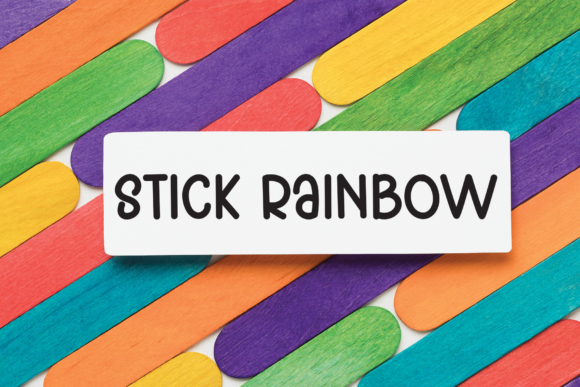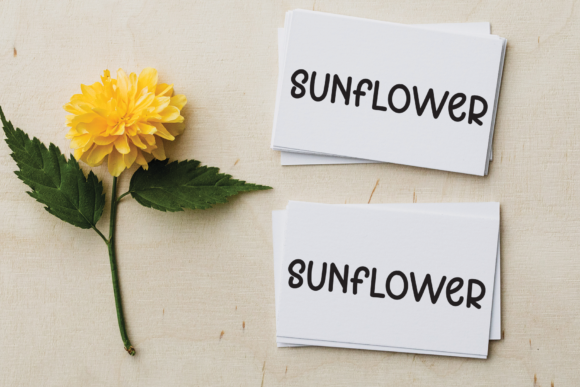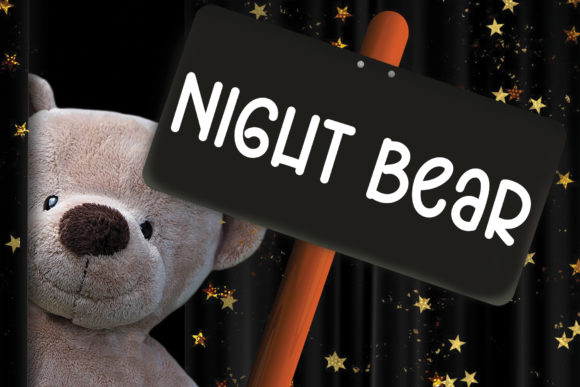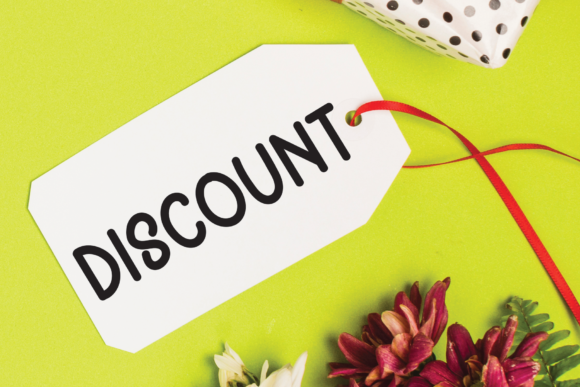
Introduction to School Moment Font
Do you remember the first time you fell in love with a font? Maybe it was a quirky handwritten script that caught your eye in a design magazine, or a beautifully crafted sans-serif that made your project stand out. For me, it was a font that embodied the carefree spirit of childhood – the School Moment Font.
This charming font is a treasure trove of creativity, perfect for designers who want to add a touch of whimsy to their projects. With its high quality design and transparent background, School Moment Font is a valuable resource for any creative endeavor. Whether you’re working on a children’s book, a birthday card, or a design project for kids, this font is sure to bring a smile to your face.
Key Features of School Moment Font
- High-quality design resource ideal for creative projects, such as educational materials, posters, and flyers.
- Unique, hand-drawn design with a transparent background, allowing for easy customization and composition.
- Perfect for use in school-related projects, with a modern and playful aesthetic that appeals to both children and educators.
- Unique characteristics include intricate details and subtle textures, adding depth and visual interest to any design.
Honest Review: School Moment Font
I recently stumbled upon the School Moment Font and I must say, it’s a great addition to any design resource collection. I love experimenting with new fonts to elevate my creative projects, and this one did not disappoint.
The School Moment Font has a clean and modern design that works well for a variety of applications. It’s perfect for headings, titles, and even body text. ✨ The font’s high quality is evident, and the transparent background makes it easy to use with any background image or color.
While the School Moment Font is a great addition to any design resource collection, there are a few limitations to consider:
- ⚠️ Limited character set, which may not be suitable for longer texts
- ⚠️ May not be suitable for complex or technical content
The School Moment Font is commonly used for educational projects, such as creating presentations, flyers, and social media posts. It’s also great for personal projects, such as creating invitations and party decorations.